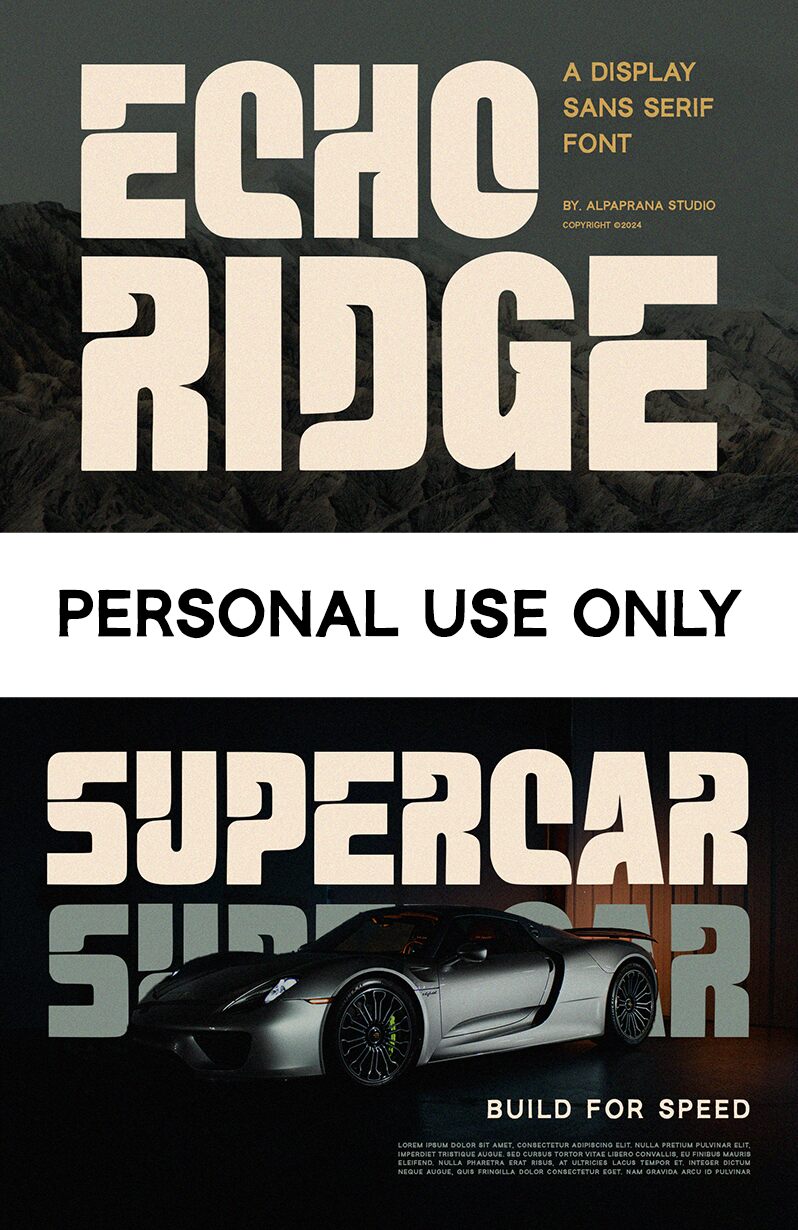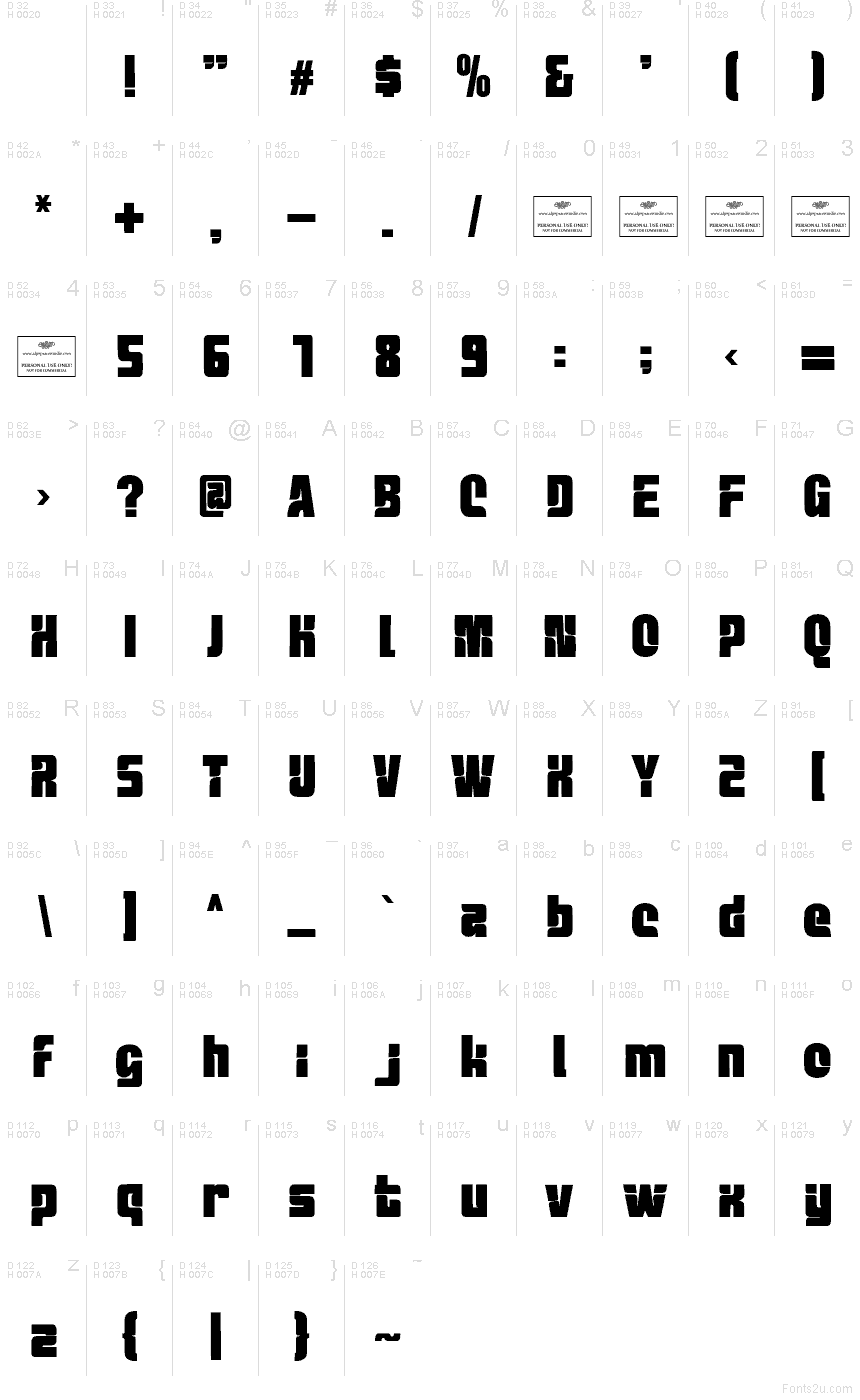
Echo Ridge Regular
Echo Ridge font by Alpaprana Studio is a free bold decorative display retro typeface with a chunky, carved-from-stone feel. Its thick, inky blocks are scooped out with smooth inner curves, creating a rhythmic pattern of light and shadow that feels both retro and futuristic. The tight spacing and squared-off silhouettes give every word a solid, poster-ready presence that practically vibrates off the page.
Using Echo Ridge, your headlines instantly become the main event—great for gig posters, album covers, gaming titles, sports branding, festival merch, and eye-catching social media graphics. This free font shines at large sizes where its sculpted shapes can breathe; pair it with a slim, neutral sans serif for body copy to keep layouts bold yet readable.